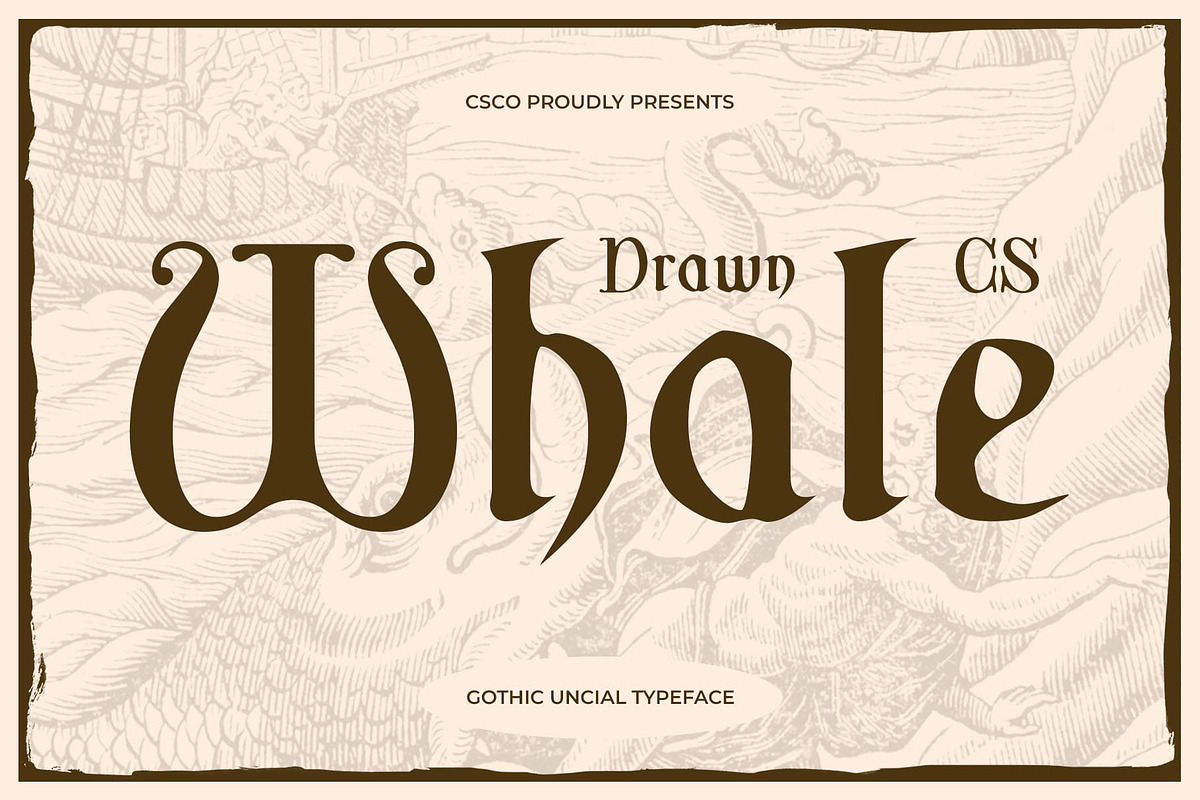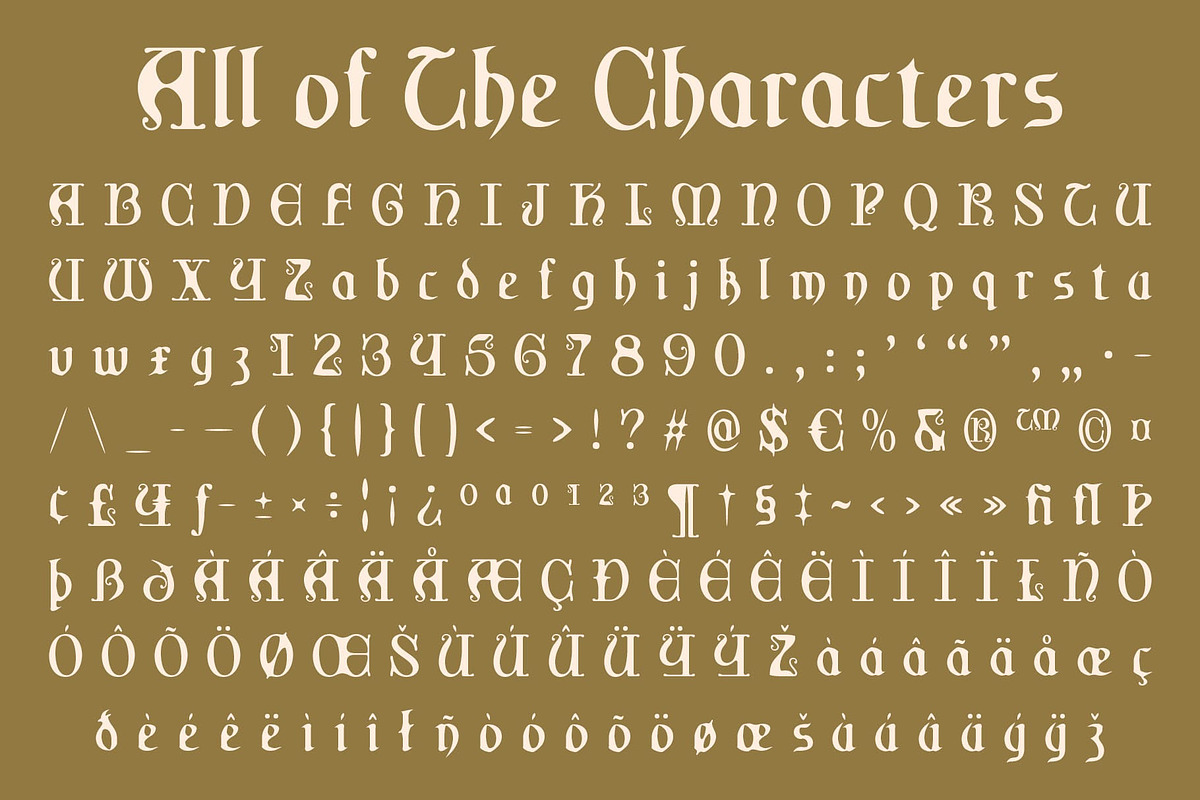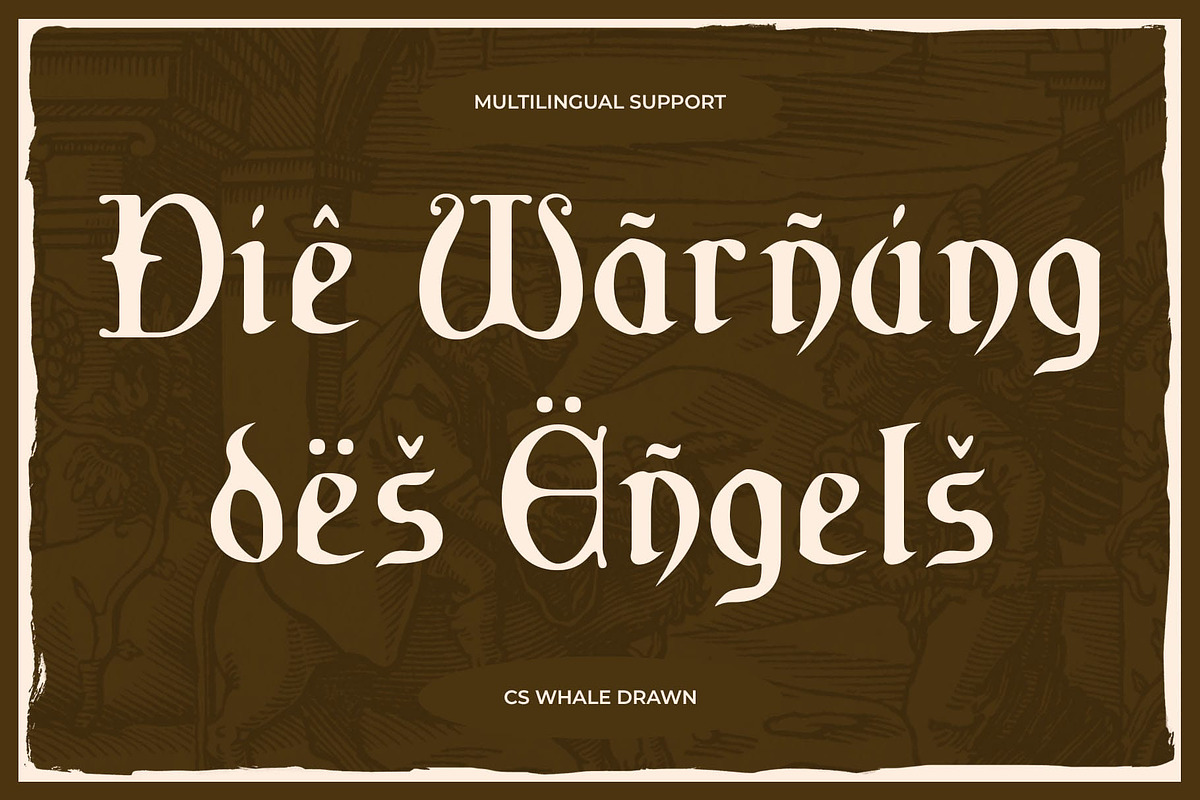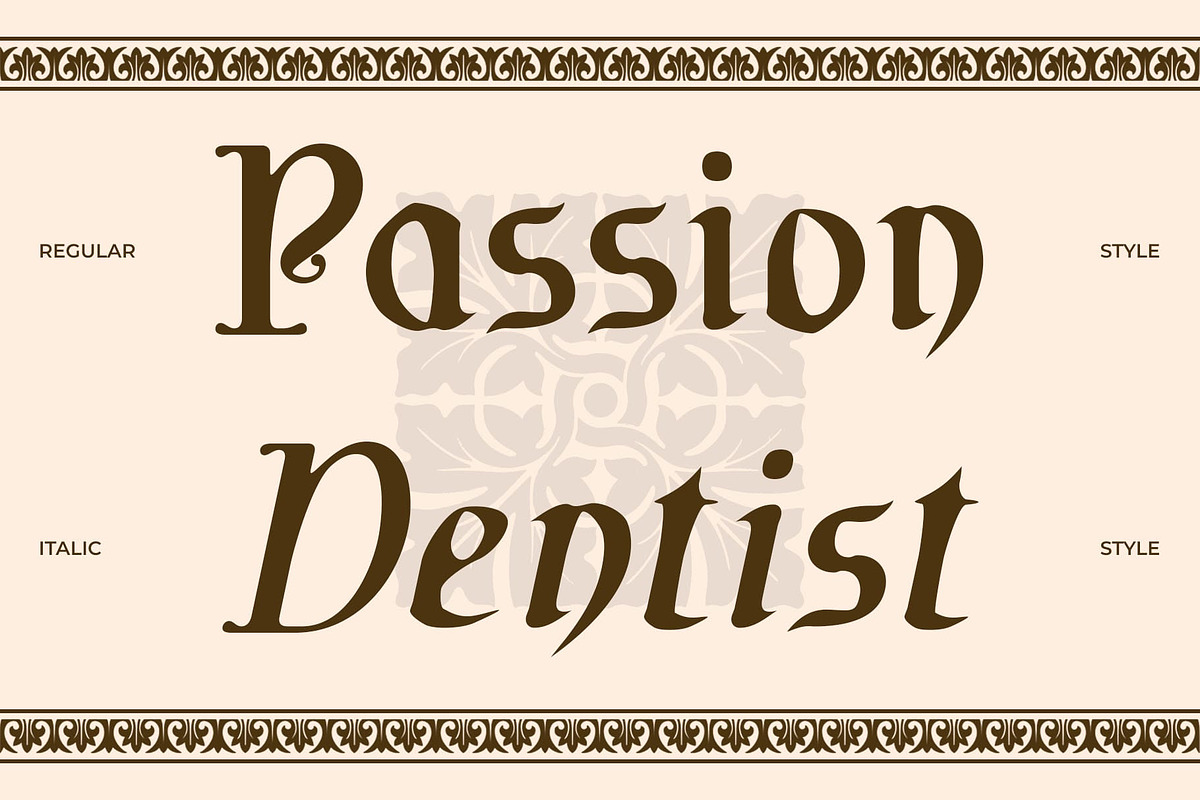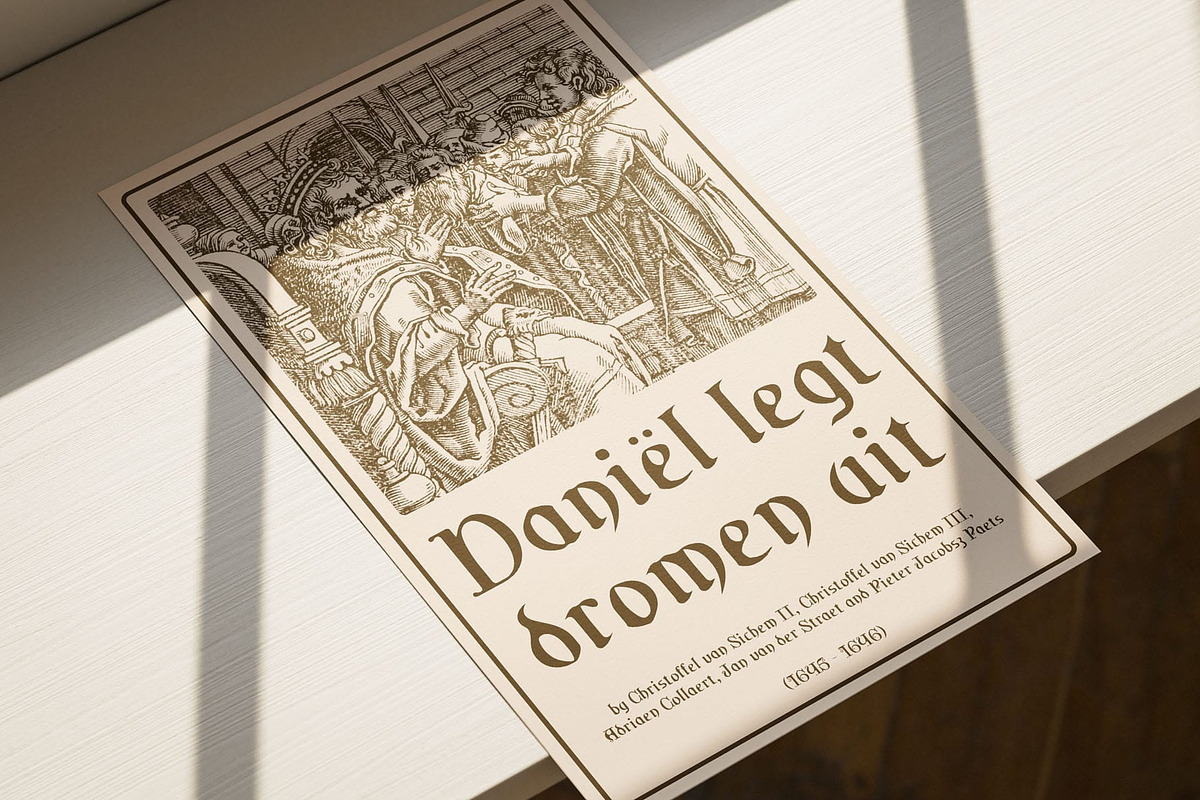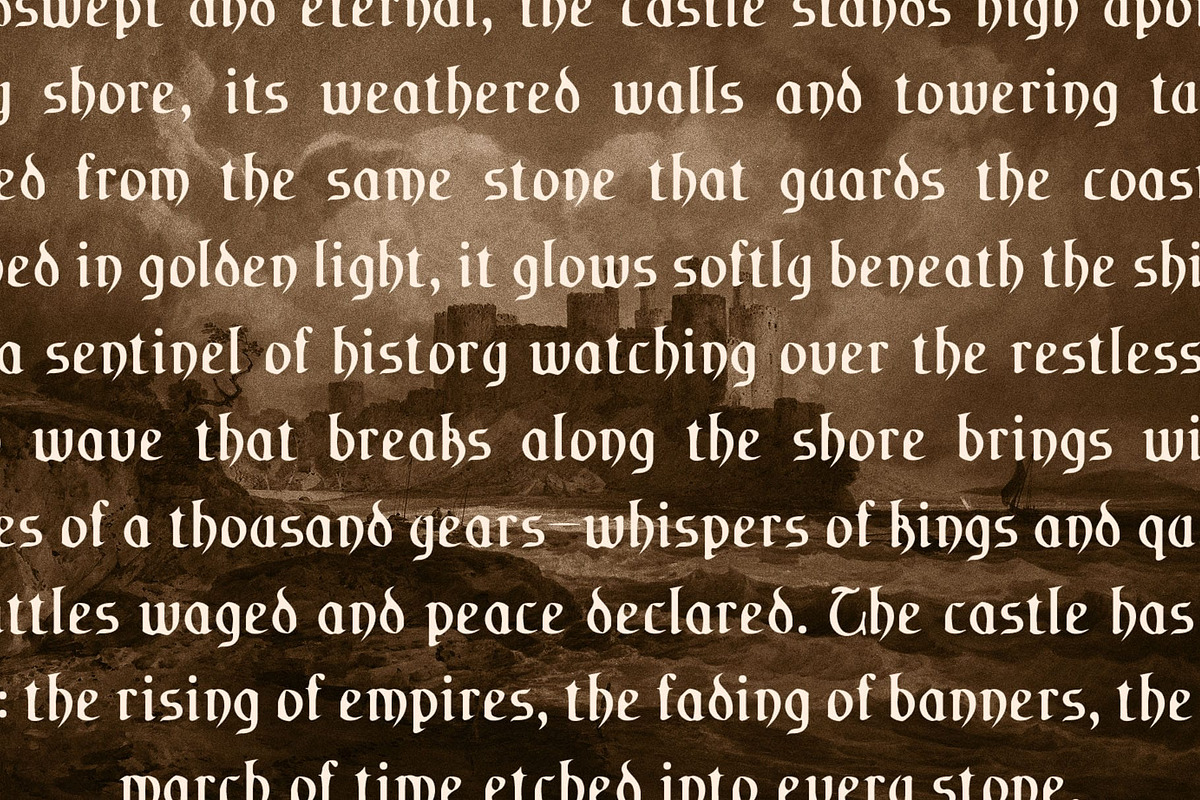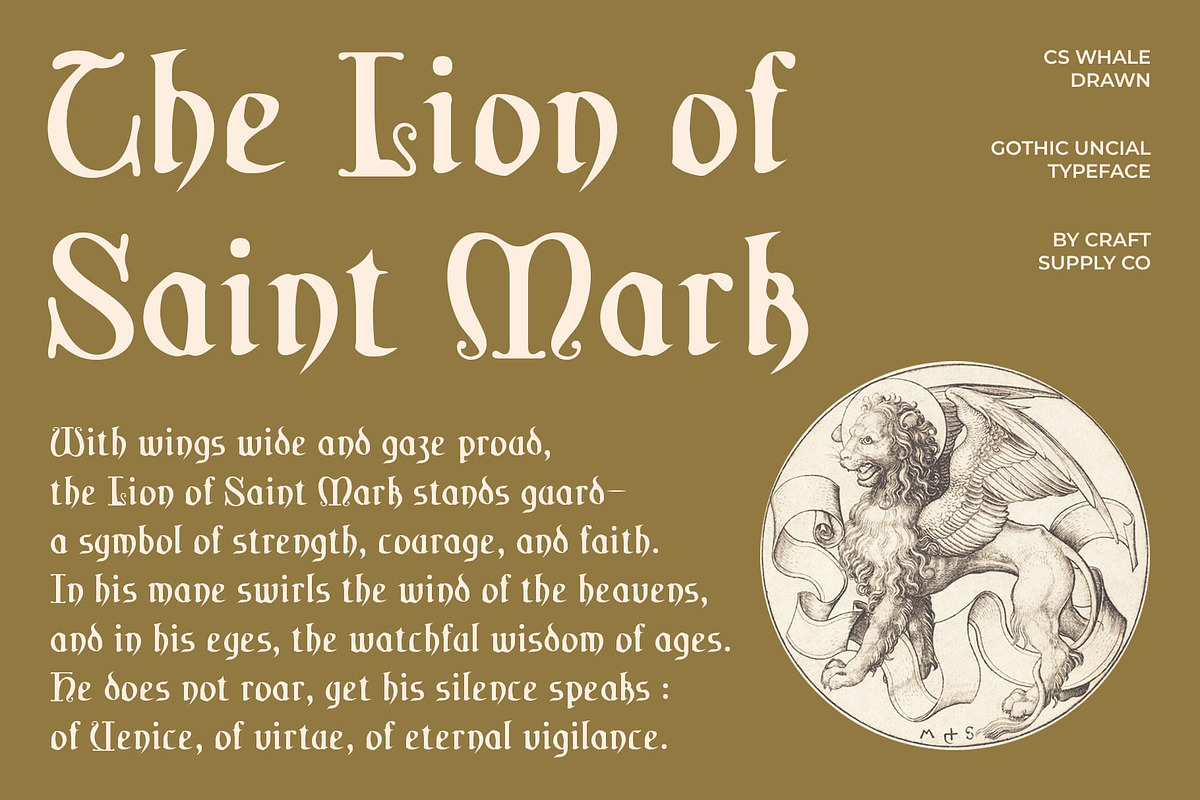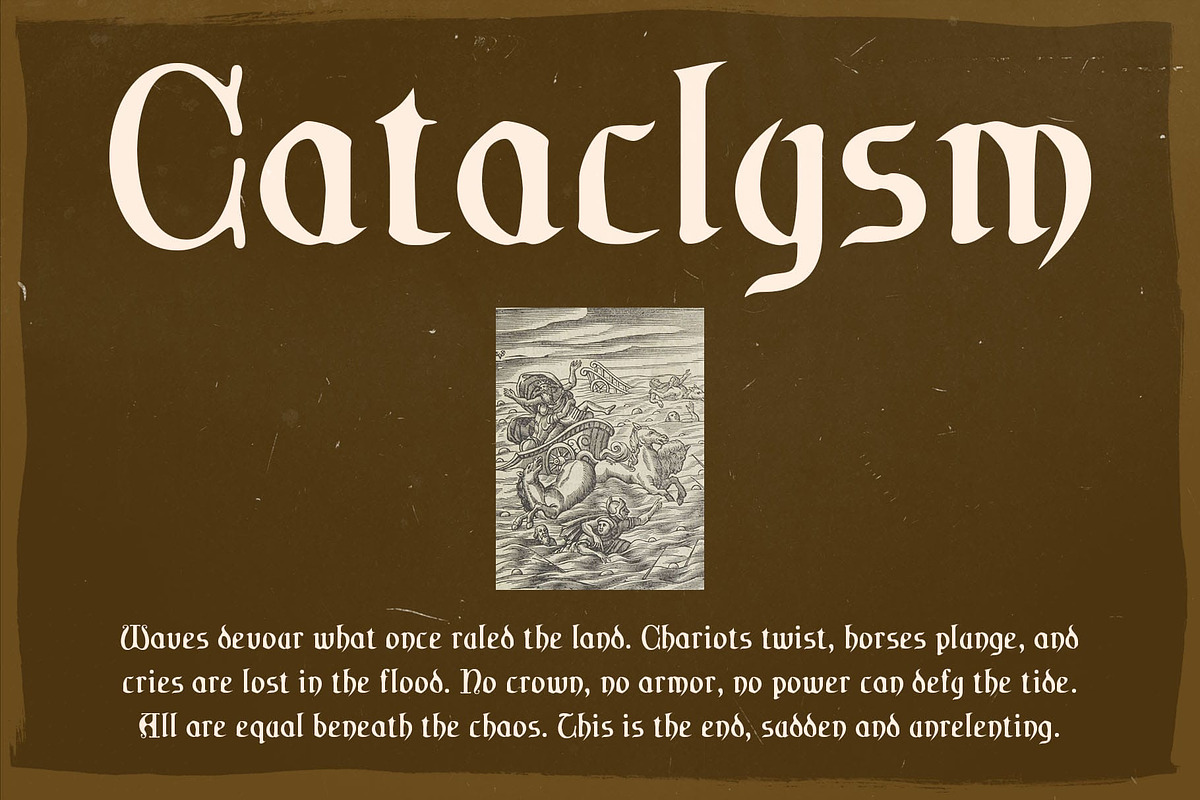
CS Whale Drawn
CS Whale Drawn – Where Gothic Strength Meets Uncial Grace
Historic Fusion of Gothic and Uncial Styles CS Whale Drawn is a gothic uncial display font that merges the bold vertical weight of Gothic design with the rounded, open curves of traditional uncial lettering. This combination creates a distinctive and antique appearance, drawing inspiration from medieval manuscripts and early book typography, yet offering a unique visual twist that feels relevant for modern creative expression.
Hand-Drawn Texture for Organic Appeal The addition of a drawn effect introduces a rough, handmade texture, lending the font an artisanal, personal quality. These subtle imperfections and irregular lines bring out its organic charm, transforming its structured letterforms into something more expressive, warm, and visually rich.
Timeless Elegance with a Bold Voice This font evokes a mystical and fantastical feel, carrying an authoritative and historical tone softened by flowing uncial strokes and a textured finish. It evokes a feeling of timeless storytelling, ancient elegance, and imaginative depth, while remaining bold and legible, making it perfect for display purposes that seek impact and beauty in balance.
Ideal for Fantasy, Folklore, and Editorial Themes From mythical book covers and fantasy posters to creative branding and editorial spreads, this expressive and personal brings a mystical and artistic flair to any project. It’s the perfect typeface for designs that want to bridge the gap between classical heritage and contemporary craftsmanship.
- CS Whale Drawn Regular
- CS Whale Drawn Italic